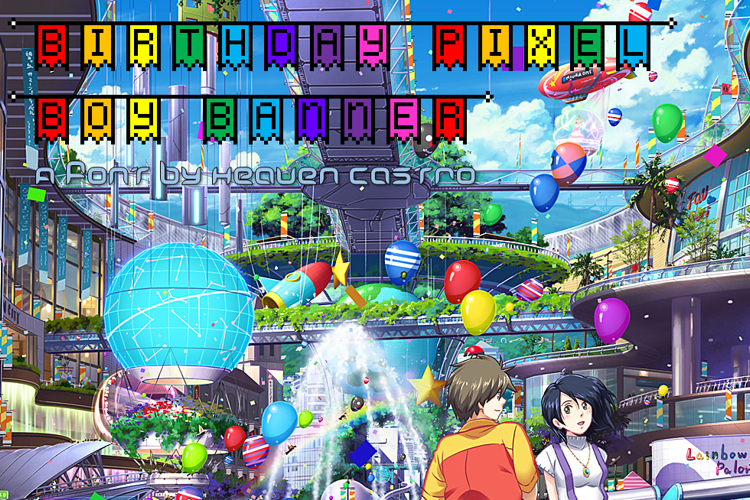
Birthday Pixel Boy Banner Font
Birthday Pixel Boy Banner is a pixelated party banner font where nearly every letter has a hollowed and filled variation.
You, of course, must layer both the filled and outlined variations properly and add each end to the star and end of the phrase. Also, try using the underscore (_) symbol instead of space to keep the pixelated banners connected.